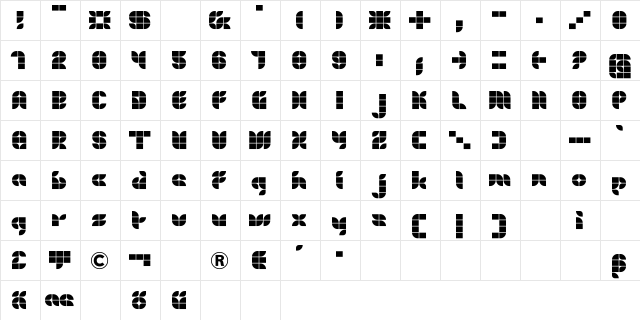
DS MrGreen Regular
Design Context for DS MrGreen Typeface
DS MrGreen is a composed and adaptable typeface that performs quietly and consistently across a wide range of design contexts.